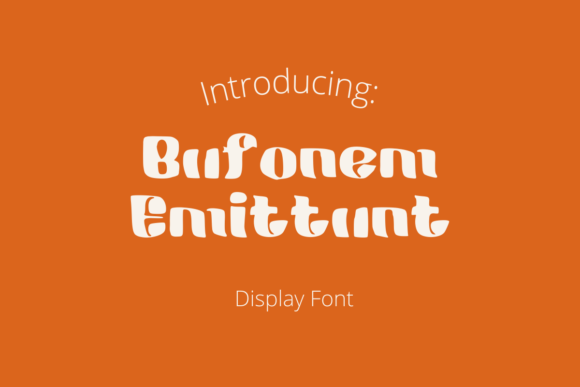
The Ultimate Display Font: Bufonem Emittunt Font
I’ll never forget the design project that led me to discover the incredible Bufonem Emittunt Font. I was working on a branding campaign for a new coffee shop, and I needed a font that would make their headlines pop. After hours of searching, I stumbled upon this stunning display font, and it instantly became the perfect fit. In this article, I’ll share my experience with Bufonem Emittunt Font, its features, and how to make the most of it in your designs.
• ✨ **Bold and Exaggerated Letterforms**: Bufonem Emittunt Font features bold, attention-grabbing letterforms that demand a strong visual presence.
• ✅ **Perfect for Headlines**: Its unique style makes it ideal for headlines, titles, and attention-grabbing text.
• 💥 **High Impact**: This font is sure to make your designs stand out from the crowd.
While Bufonem Emittunt Font is an amazing display font, there are a few things to keep in mind:
• 🤔 **Legibility at Small Sizes**: As with many display fonts, Bufonem Emittunt Font can become difficult to read at small sizes.
• ⚠️ **Limited Use Cases**: Due to its bold and exaggerated style, this font might not be suitable for body text or more formal designs.
The Designer Inspiration Behind Bufonem Emittunt Font
According to its creators, Bufonem Emittunt Font was inspired by the art of typography and the desire to push the boundaries of traditional letterforms. The font’s bold and exaggerated style is meant to evoke a sense of energy and playfulness.
Font Name Bufonem Emittunt Font
Author Sparkylicious
Q: What is Bufonem Emittunt Font best used for?
A: Bufonem Emittunt Font is best used for headlines, titles, and attention-grabbing text.
Q: Can I use Bufonem Emittunt Font for body text?
A: While possible, Bufonem Emittunt Font might not be the best choice for body text due to its bold and exaggerated style.
Q: Is Bufonem Emittunt Font suitable for digital use?
A: Yes, Bufonem Emittunt Font is suitable for digital use, but make sure to test it at different sizes and resolutions to ensure legibility.